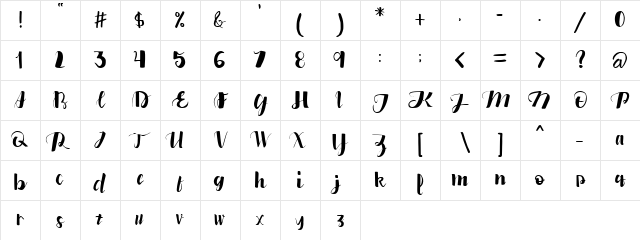
edfander Regular
Design Context for edfander
edfander is a composed and adaptable typeface that performs quietly and consistently across a wide range of design contexts.